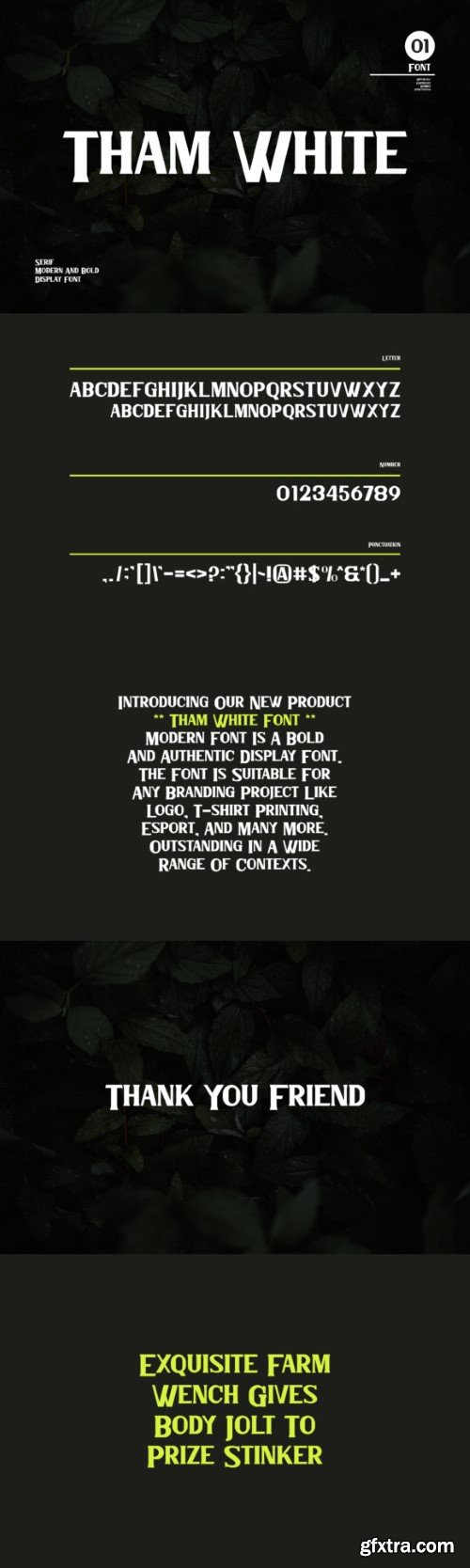
Tham White is a contemporary serif font that exudes boldness and sophistication. With its clean, sharp lines and commanding presence, Tham White adds a modern twist to the timeless serif style, making it ideal for eye-catching headlines, logos, and elegant design projects.